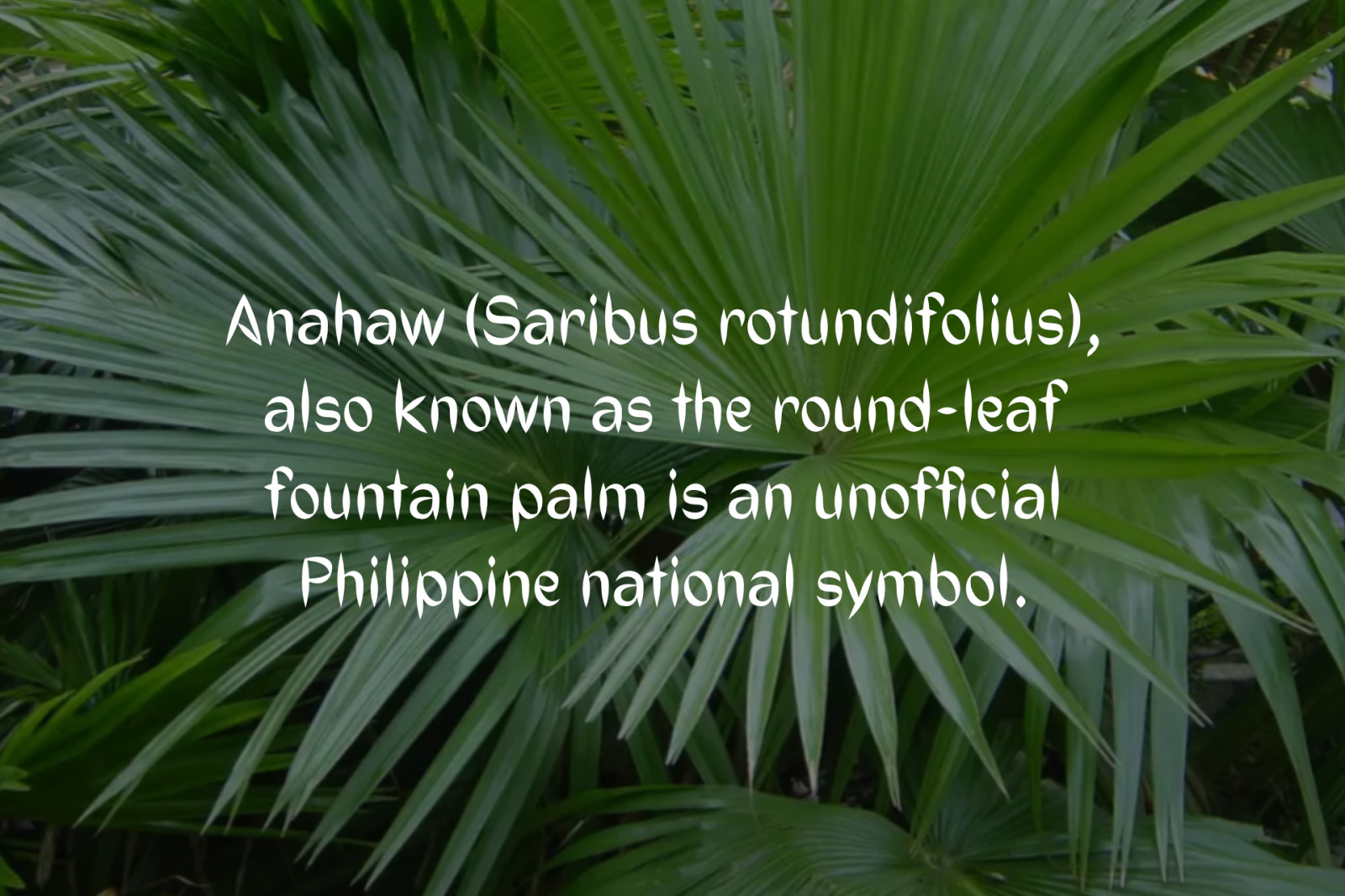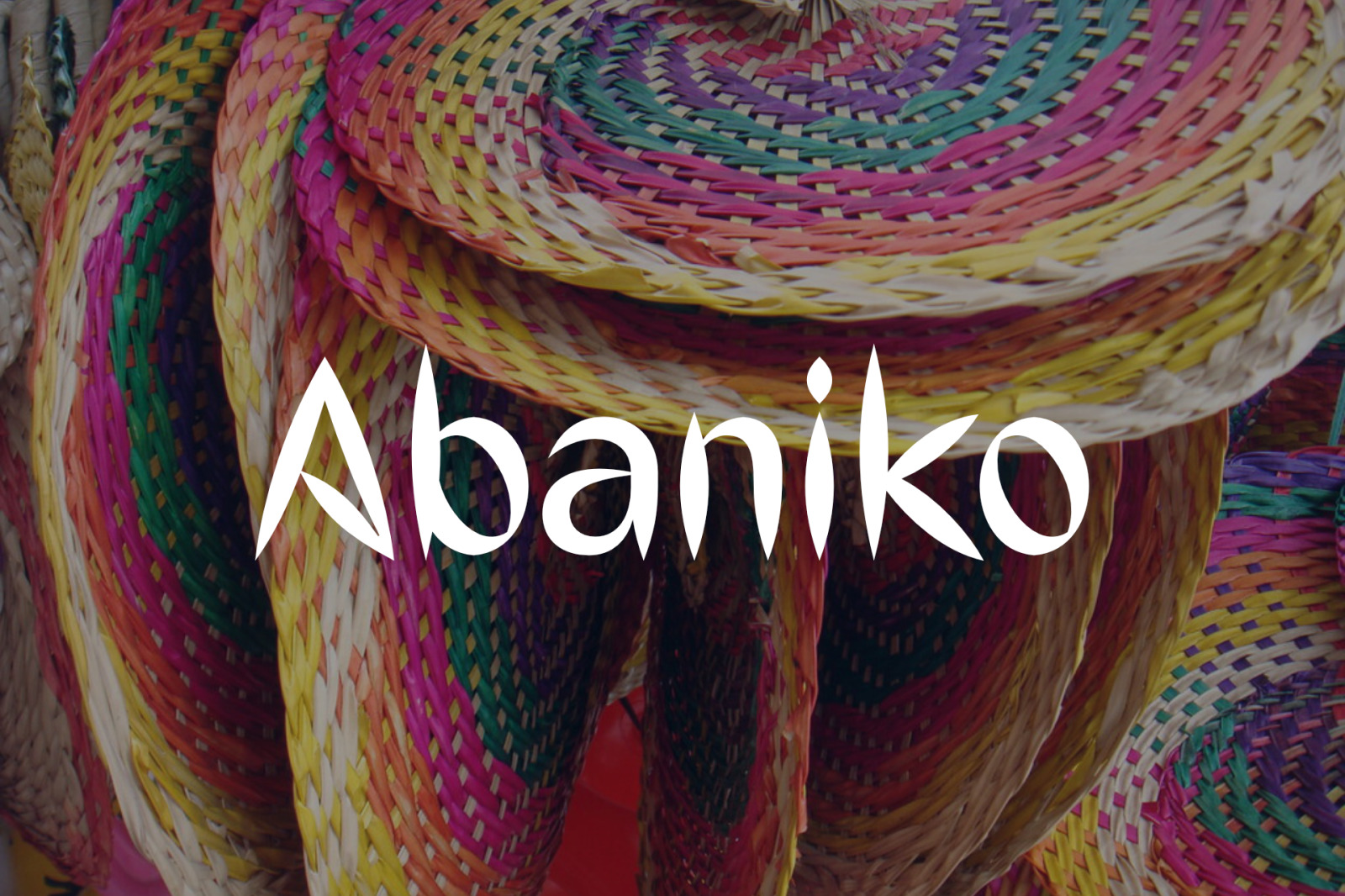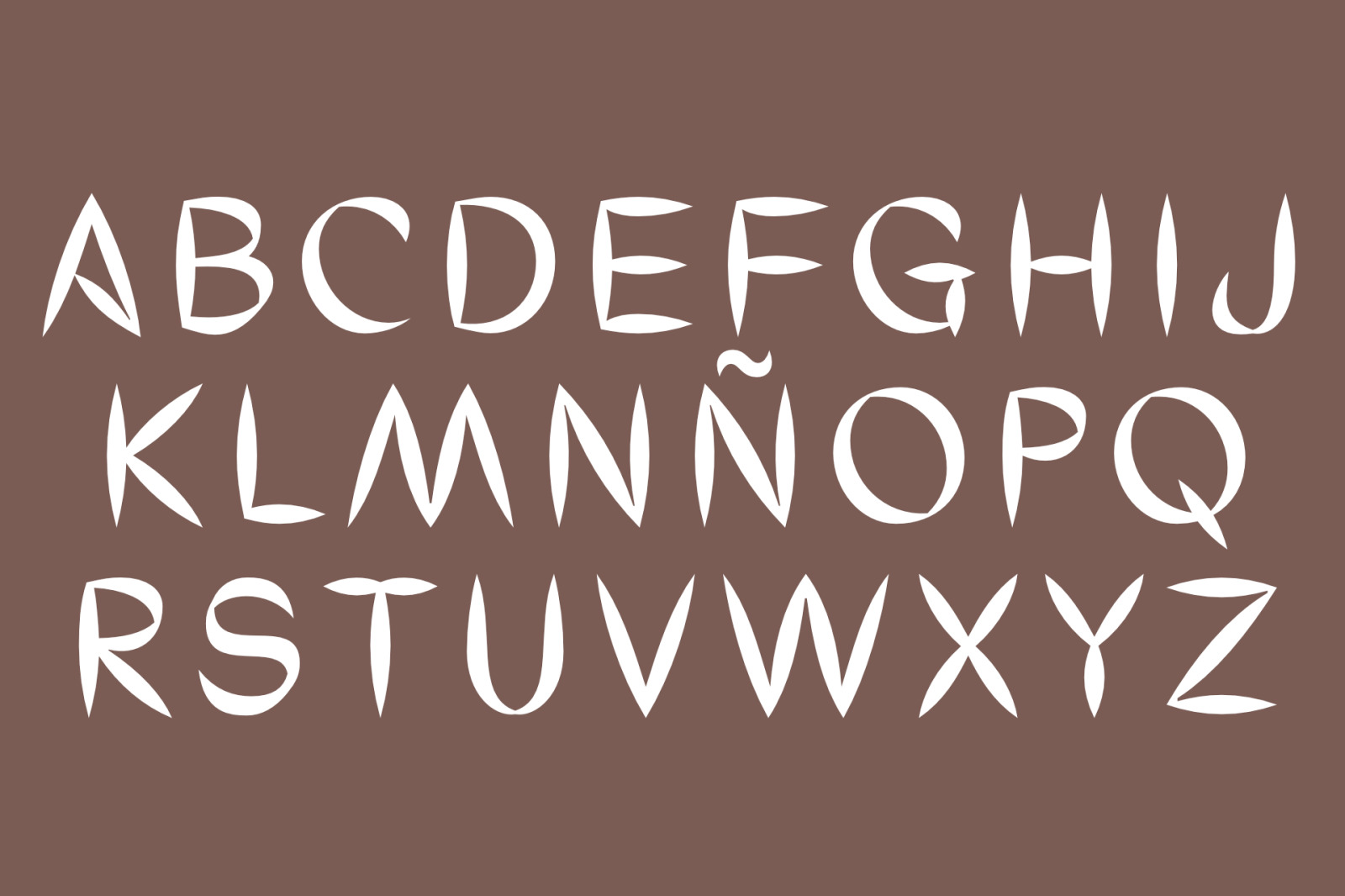
Anahaw Typeface
Anahaw is another new display typeface inspired by the unofficial Philippine National Leaf—the Anahaw. The leaf has been used as pambalot (food wrapper) for tikoy, or as a makeshift lunchbox. It has been made into an Abaniko (fan), which is very beautiful and a work of art.